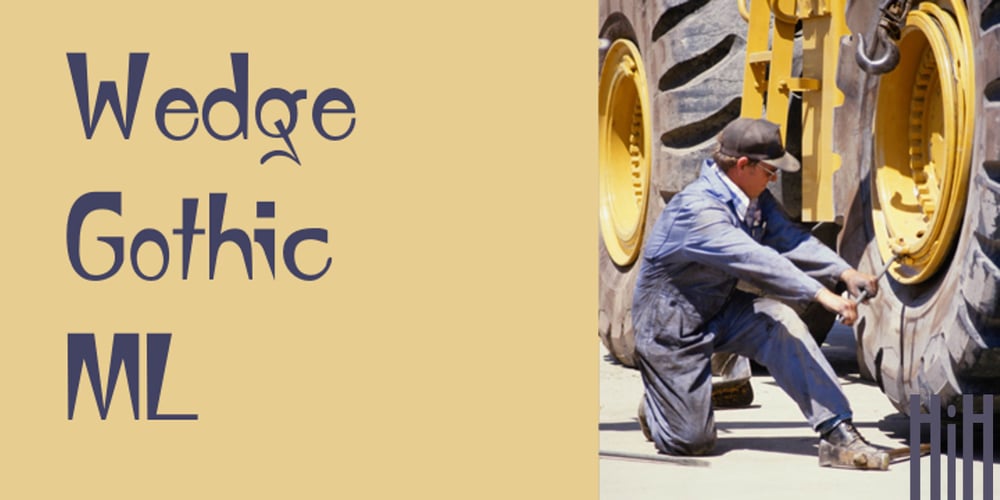
Wedge Gothic Font Family was designed by published by HiH. Wedge Gothic contains 1 styles and family package options. Bold, muscular, vaguely oriental, Wedge Gothic ML is the original name of this font released by Barnhart Bros. and Spindler of Chicago in 1893. The straight-forward, no-nonsense name tells us exactly what to expect: sans-serif letterforms based on wedge-shaped vertical strokes. The typeface was dropped for awhile — it does not appear in the 1907 catalog for example — but reappeared in 1925 as Japanette. What is the opposite of “straight-forward” anyway? According to McGrew, Wedge Gothic was originally created for the Chicago Herald newspaper. The designer is unknown. A distinctive display face, useful when a strong and unusual statement is desired. Wedge Gothic ML features: 1. Glyphs for the 1250 Central Europe, the 1252 Western Europe, the 1254 Turkish and the 1257 Baltic Code Pages. Total of 335 glyphs. 2. OpenType GSUB layout features: pnum, ornm, hist & salt. 3. 66 kerning pairs. 4. Both tabular & proportional numbers. 5. Alternate bullets. The zip package includes two versions of the font at no extra charge. There is an OTF version which is in Open PS (Post Script Type 1) format and a TTF version which is in Open TT (True Type)format. Use whichever works best for your applications.